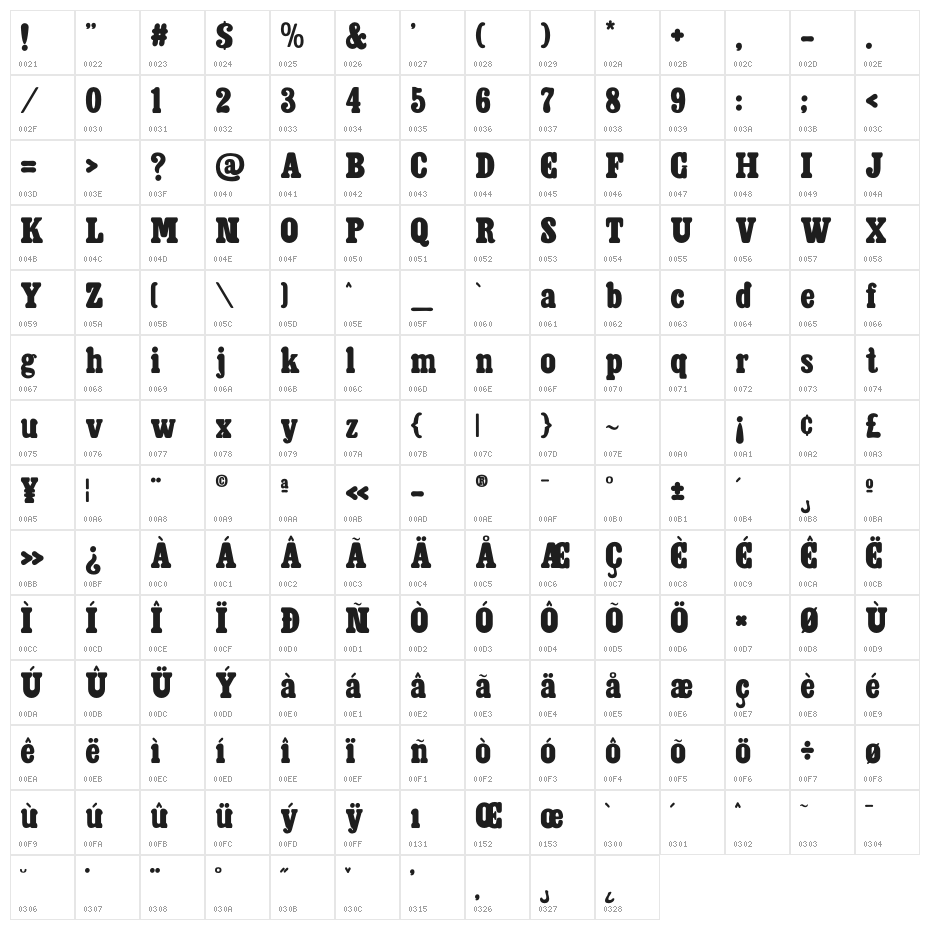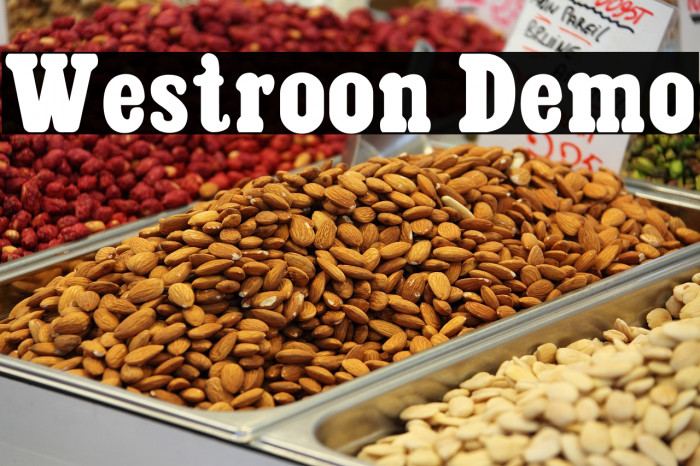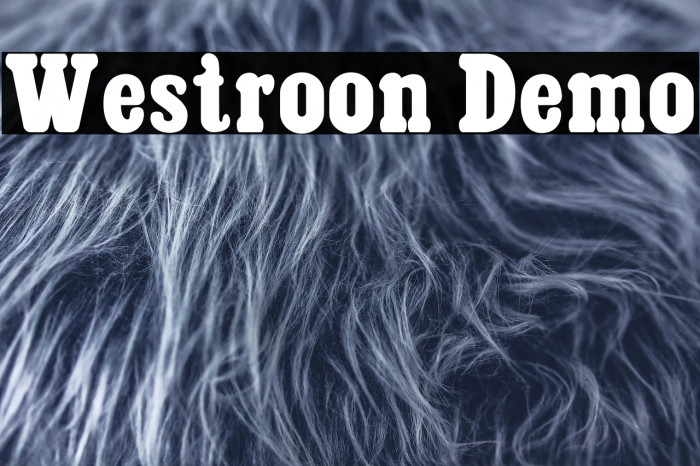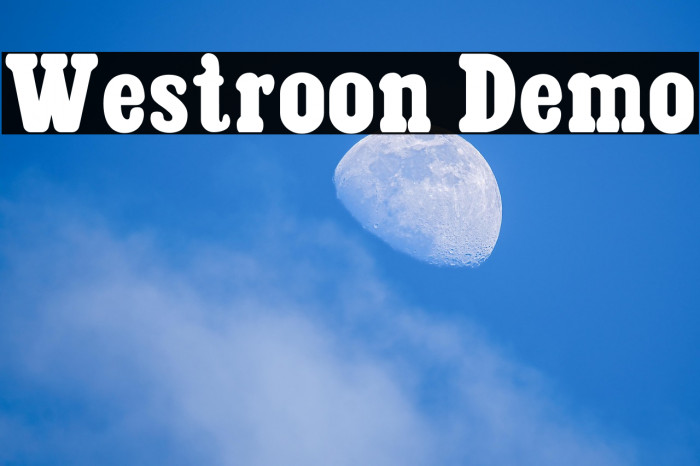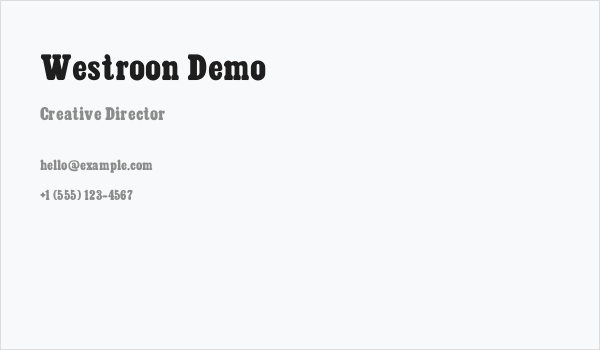
Westroon Demo Font
Westroon Demo Description
| Overall Style | Playful, Bold |
| Proposed Projects | Ideal for children's books, playful branding, posters, and headlines that require a strong, friendly presence. |